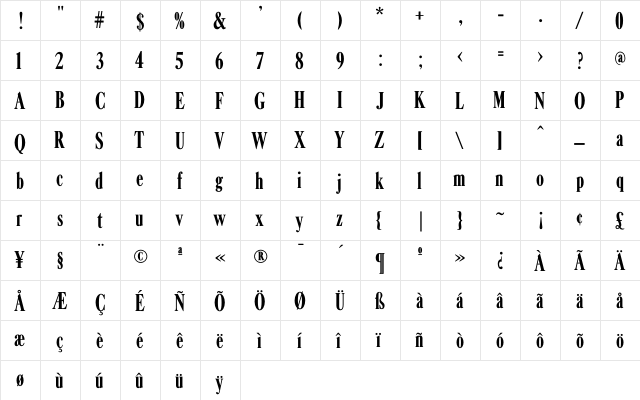
CaslonFB BoldExtraCondensed Font Preview
CaslonFB BoldExtraCondensed
Design Context for CaslonFB Typeface
CaslonFB offers clean, dependable letterforms without strong stylistic allegiance, making it a practical choice for designers who need flexibility. The heavy weight commands attention and anchors typographic hierarchies. The condensed width makes it efficient for tight spaces without sacrificing legibility.